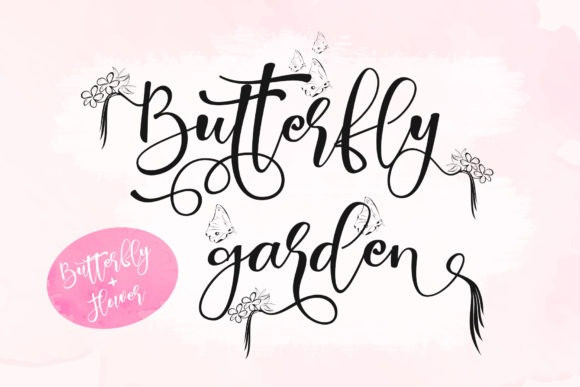
Butterfly Garden Font
Butterfly Garden Font is a very unique handwriting, the shape is modern and the calligraphy font style is very natural. This font has the potential to take any of your creative ideas to the highest level!.